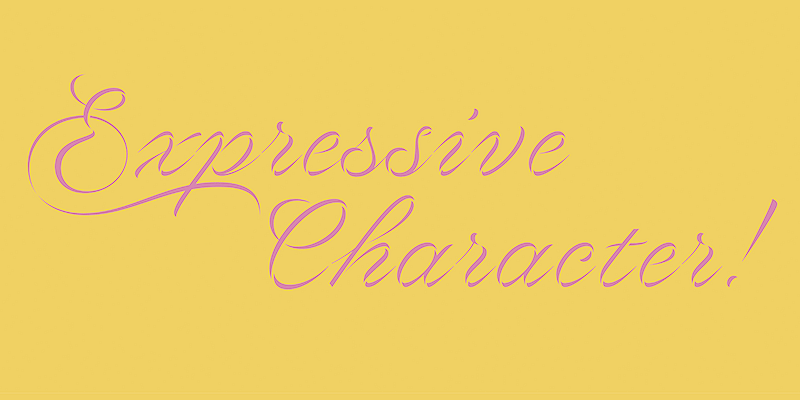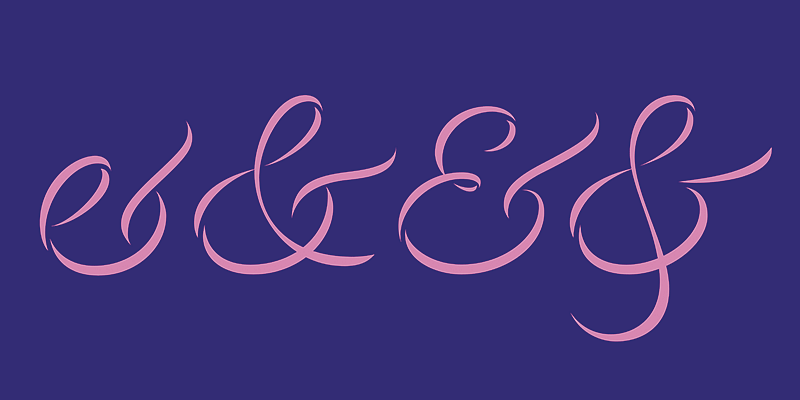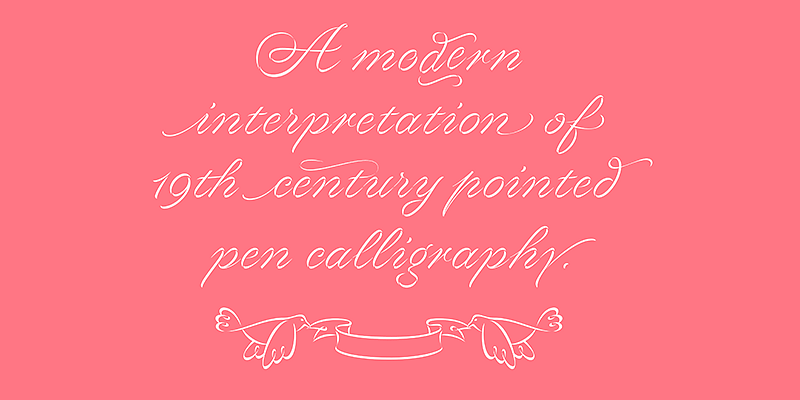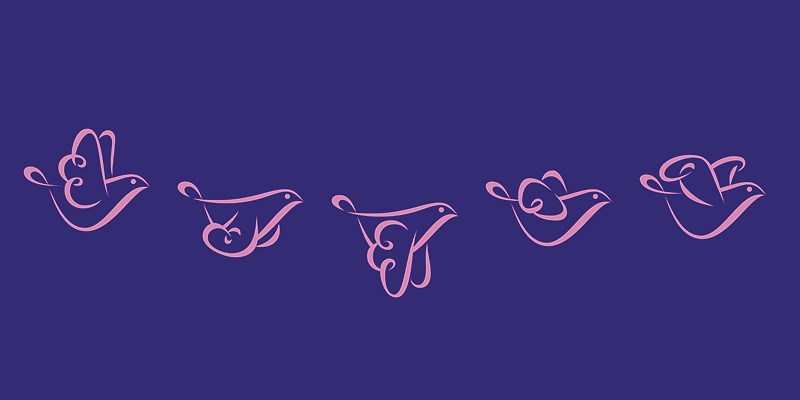
Volina was inspired by the exquisite patterns made by a ribbon in motion. Volina’s three-dimensional effect shines at large sizes, making it a great choice for statements that need a big impact.